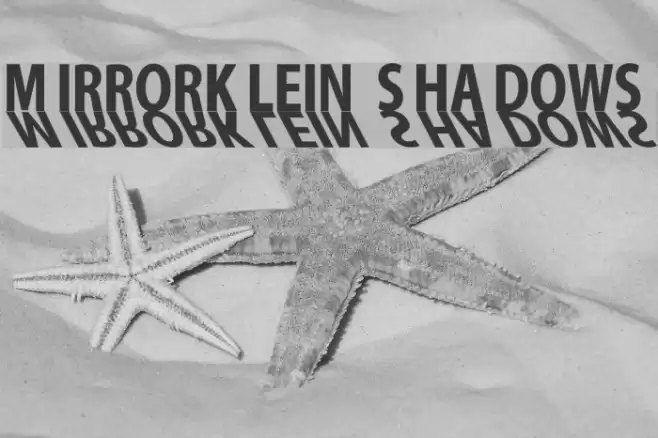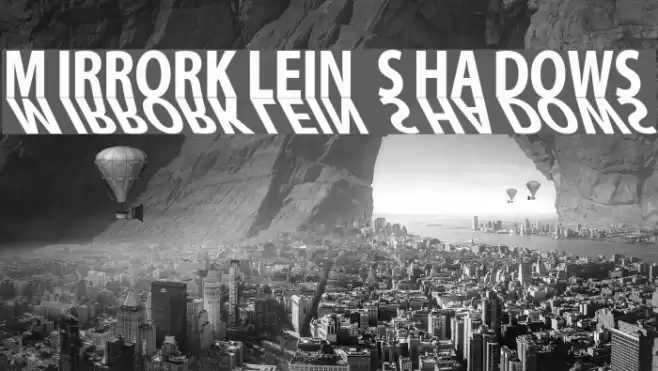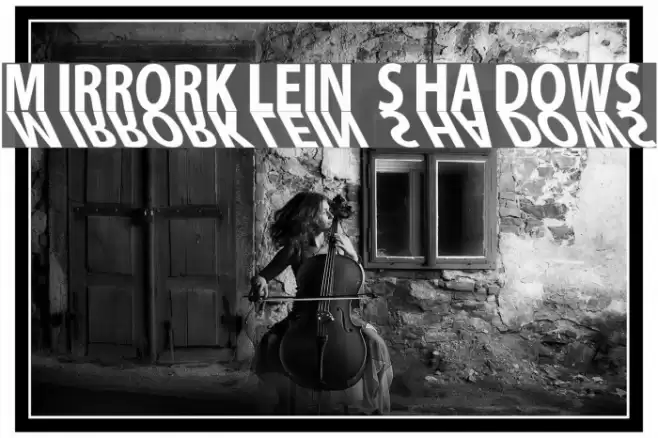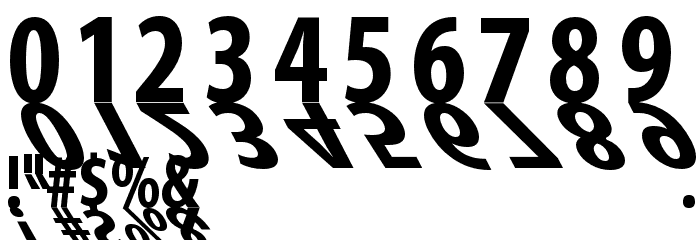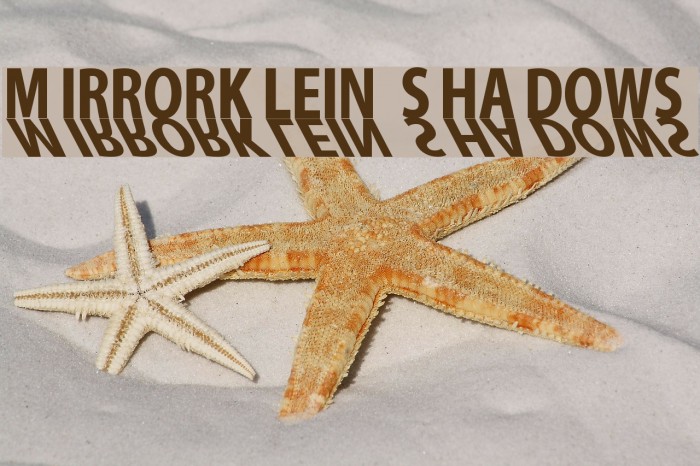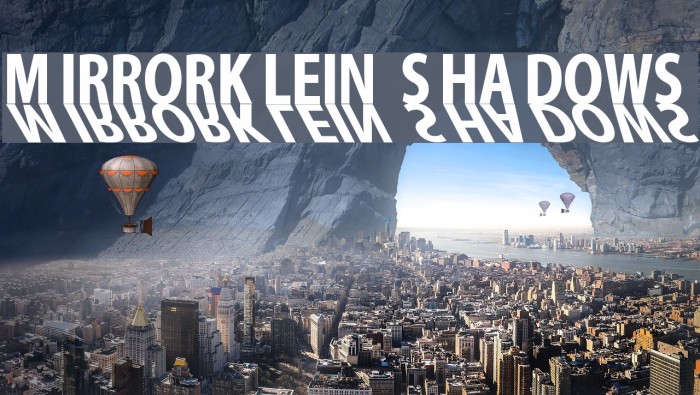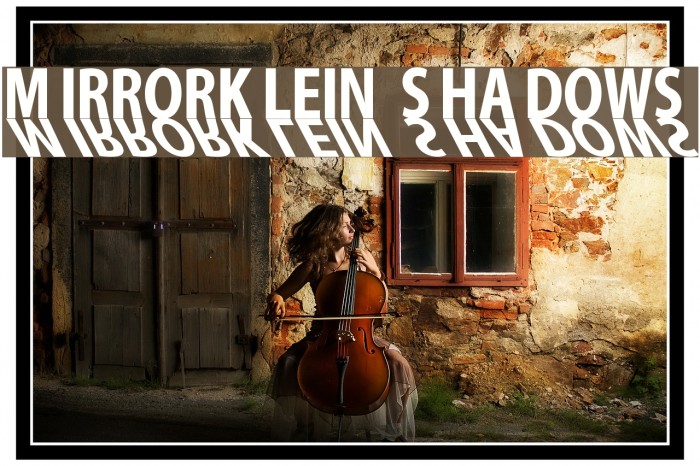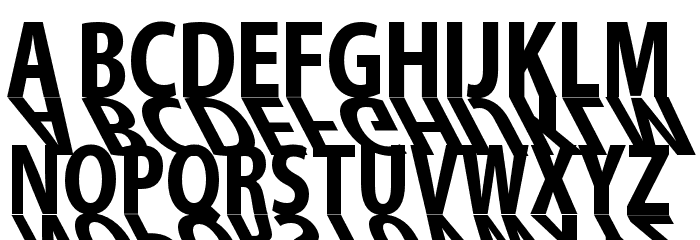
MirrorKlein Shadows Font
MirrorKlein Shadows Description
This font features a bold, modern design with a unique mirrored shadow effect that gives it a three-dimensional appearance. The uppercase and lowercase letters are crafted with clean, geometric lines, creating a sense of depth and movement. The numbers and special characters maintain this dynamic style, making the font ideal for eye-catching designs. Its bold weight and high contrast between the thick strokes and the mirrored shadows enhance its visual impact. The font's distinctive style makes it suitable for projects that require a strong, contemporary aesthetic.
A bold, modern font with mirrored shadow effects for a 3D look.
- Proposed Projects: Ideal for posters, headlines, logos, and any design needing a striking, modern touch.